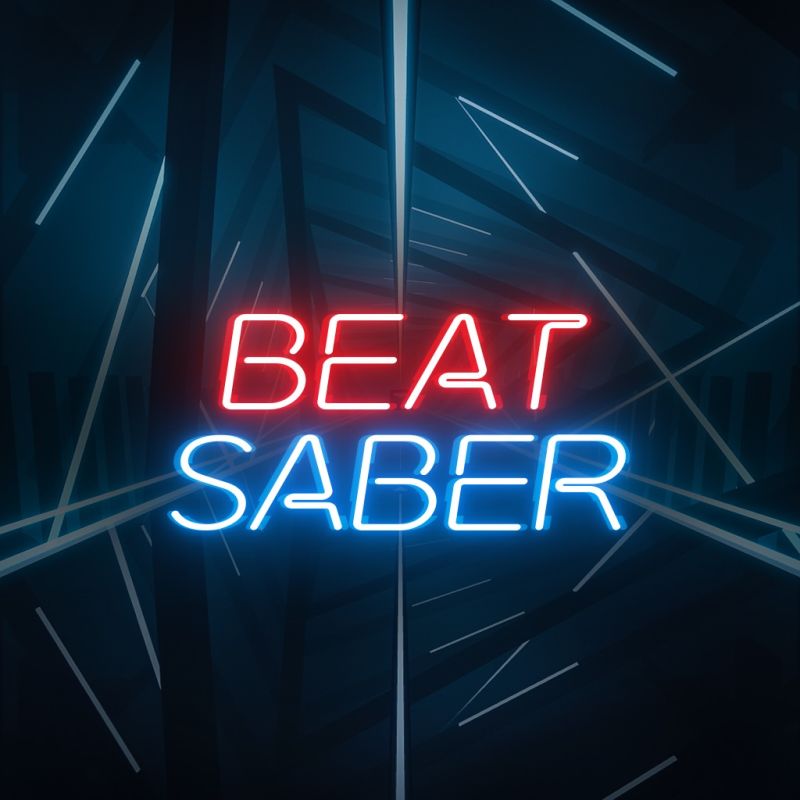
Beat Saber Font
Fonts in UseBeat Saber is a virtual reality rhythm game that involves slashing through incoming blocks with glowing sabers according to the beat of the music. It has gained popularity for its immersive gameplay and energetic soundtrack.
The logo font bears a striking resemblance to Neon Tubes, a font produced by Medialoot. For in-game text, Beon by Bastien Sozoo and Teko Bold by Manushi Parikh are used. Teko, a free font family available in five weights, supports both Latin and Devanagari scripts.